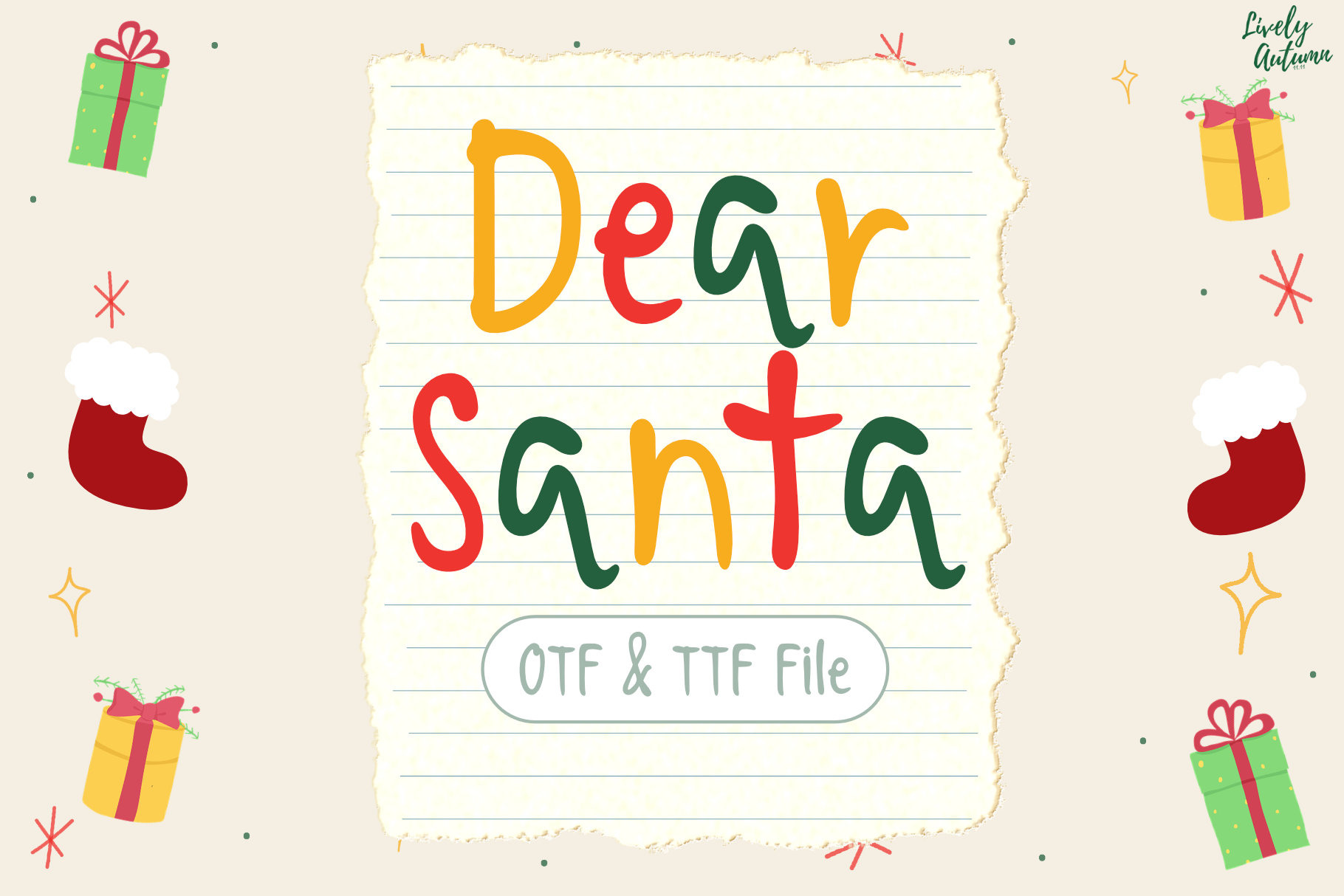
Dear Santa | Handwriting font
Dear Santa Font is a cute sans-serif, handwritten font. Perfect for your personal projects and various projects. From invitations to posters, social media graphics, journals, and much more.